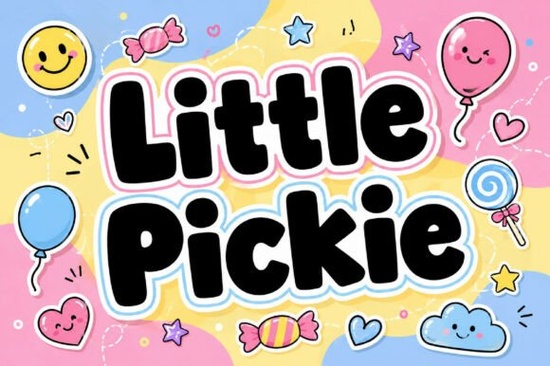
If you are looking for a typeface that instantly brings a sense of joy and playfulness to your projects, the Little Pickie Font is a fantastic choice. This child-centred display font features stout, vibrant outlines and softened curves that make it perfect for anything related to kids. Whether you are designing classroom materials, creating stickers, or working on children's merchandise, its uniform thick structure ensures your text stays highly readable while keeping a lively vibe.
What makes this typeface stand out for kids' projects?
When designing for children, readability and approachability are just as important as the overall look. This typeface uses a uniform thickness and rounded structure, which removes sharp edges and creates a friendly, welcoming feel. The joyful letterforms catch the eye immediately, making it a great option for book covers, toy labels, and playful posters. Because it is a display font, it works best for headlines, short phrases, and logos rather than long paragraphs of body text.
How can crafters and POD sellers use it?
Print-on-demand sellers and crafters can use this font to create highly marketable products. Think about the types of items parents and teachers love to buy. You can apply it to:
- Kids' apparel: T-shirts, onesies, and tote bags with fun, buoyant slogans.
- Educational materials: Flashcards, classroom posters, and reward charts.
- Party supplies: Cupcake toppers, birthday banners, and invitation cards.
- Social media graphics: Bright, engaging posts for parenting blogs or kids' brands.
If you are pairing it with other styles for a mixed-media project, you might want to contrast it with something more structured. For example, pairing it with a bold lettering style can create a nice visual hierarchy, or using a rustic western style for a country-themed kids' ranch design adds a unique twist.
Is it easy to read on digital and print mediums?
Yes. The softened intriguing curves and stout outlines prevent the letters from looking too thin or fragile when printed small or viewed on mobile screens. This makes it highly versatile for both physical crafting and digital design. When you are working on vibrant educational designs, you want the children to easily recognize the letters. The uniform structure helps maintain that clarity.
For seasonal or themed projects, you can easily mix this font with other display options. If you are making end-of-year school crafts, combining it with a seasonal summer typeface keeps the design cohesive. Similarly, if you are designing a whimsical storybook cover, pairing it with a magical or elegant script for the author's name creates a beautiful contrast. You can even use a decorative display option for subtle background elements to add depth to your layout.
Quick tips for using this font in your next project
- Keep it short: Use it for headlines and short phrases, not long blocks of text.
- Play with color: The thick outlines look amazing when filled with bright, contrasting colors or gradients.
- Add effects: Try adding a subtle drop shadow or a solid background shape behind the text to make it pop on busy backgrounds.